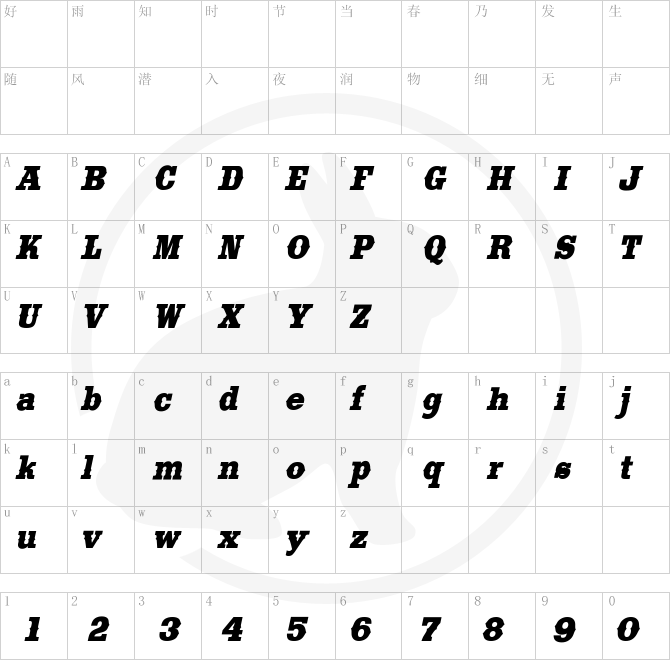
- Font Name:SaddlebagCondensed
SaddlebagCondensed-Italic.ttf is a very beautiful artistic font, SaddlebagCondensed-Italic.ttf is widely used in the design and printing of various books and pictures,SaddlebagCondensed-Italic.ttf has a strong visual impact,SaddlebagCondensed-Italic.ttf is a commonly used font in newspapers, magazines and books, and is used in posters, e-commerce Poster design, store design, logo design, font design and other fields.SaddlebagCondensed-Italic.